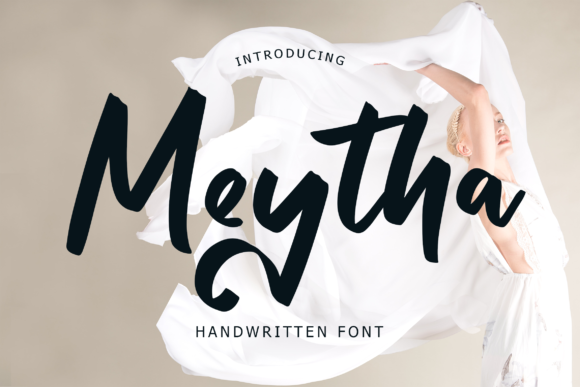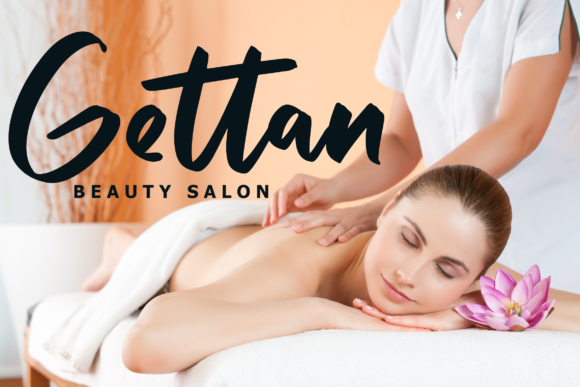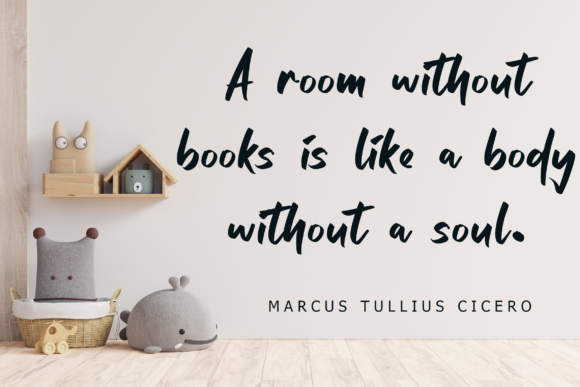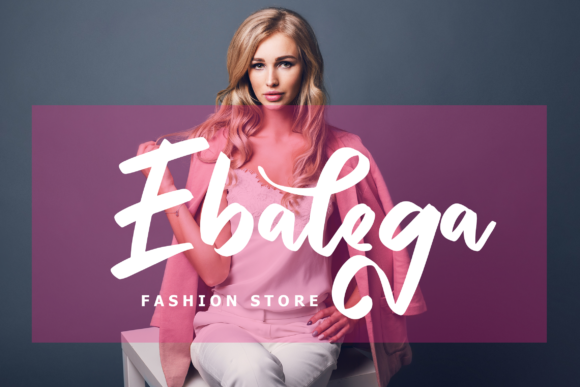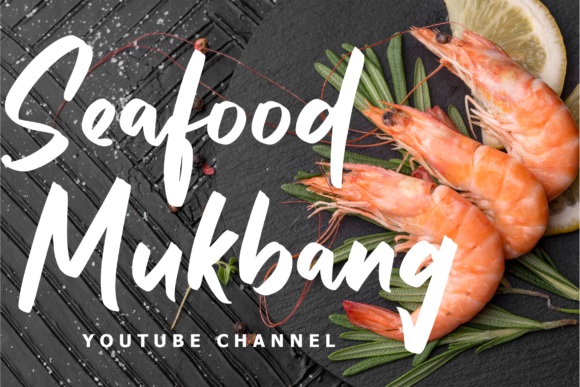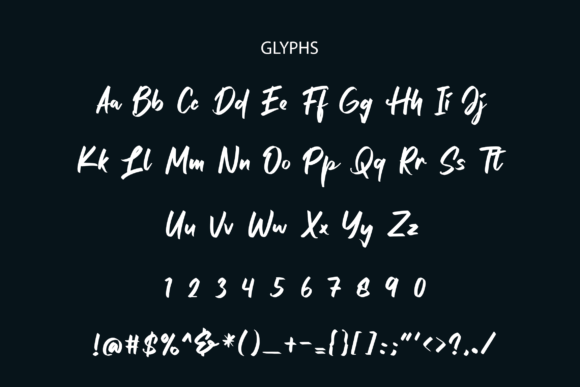
Meytha Font
About Meytha Font
Meytha is a bold and casual handwritten font. Add this chunky lettered font to your designs and notice how it makes them come alive!